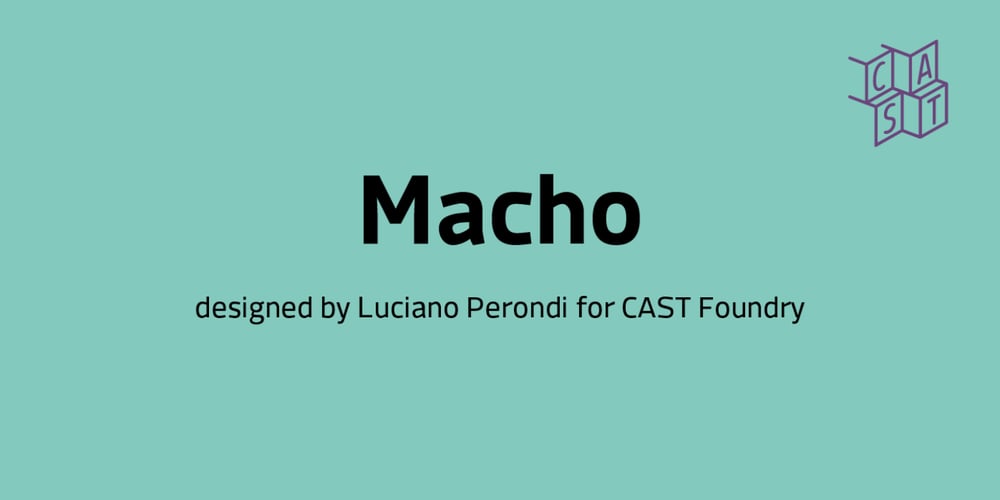
Macho Modular Font Family was designed by Luciano Perondi and published by CAST. Macho Modular contains 10 styles and family package options. Macho was designed in 2010 for MAN, Museo d’Arte Provincia di Nuoro, as a part of the corporate identity designed by Sabina Era. Macho is based on the idea of modular widths of the 20th-century typesetting systems, as the Olivetti Margherita and the hot-metal Linotype machine. The basic module is 7,5 percent of the body size (75 upm units) and every letter width is up to 20 modules. Every letter has the same width across different weights.Macho includes a large set of boxes and underlines that can be overlapped on the letters.